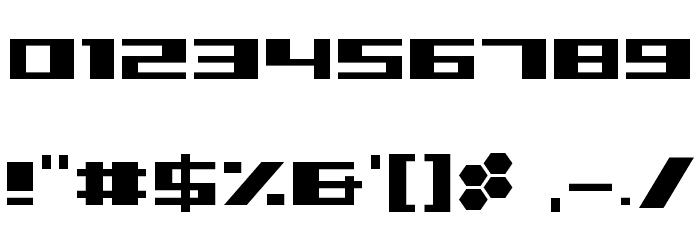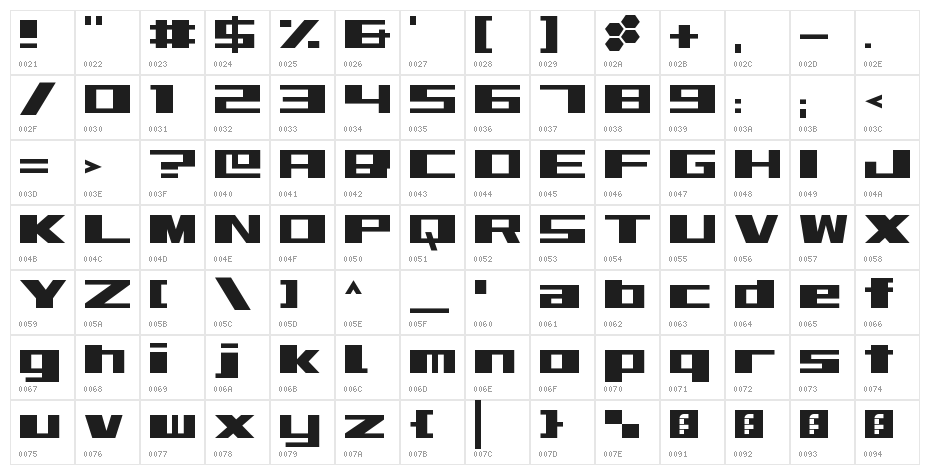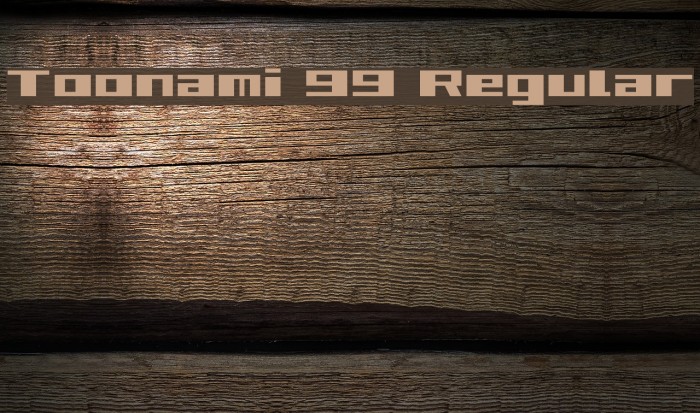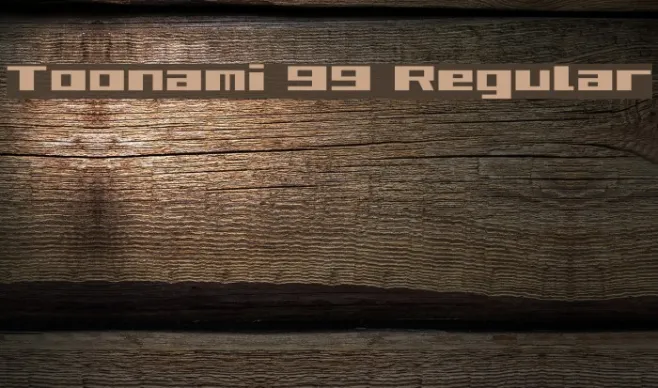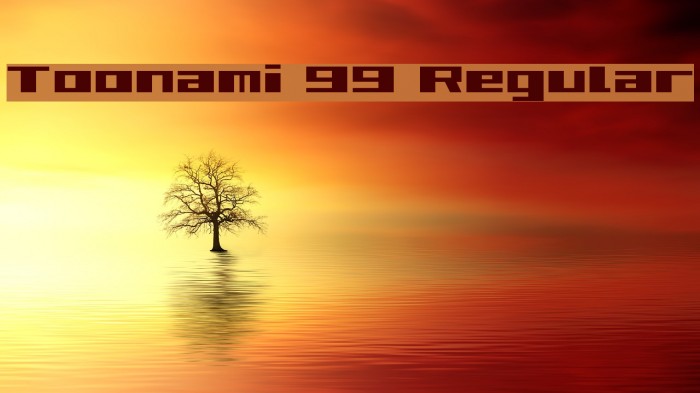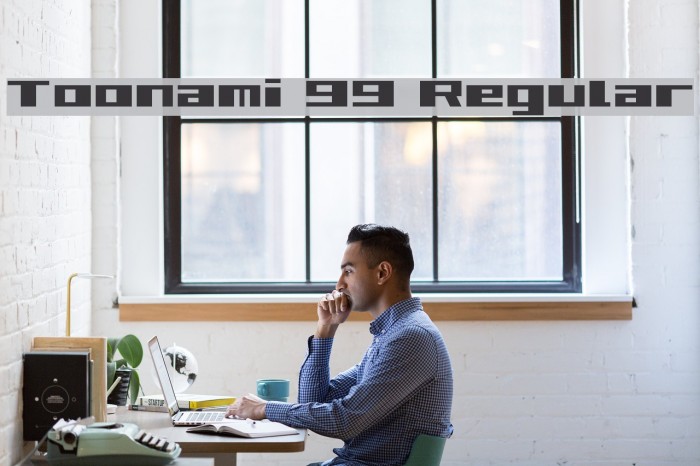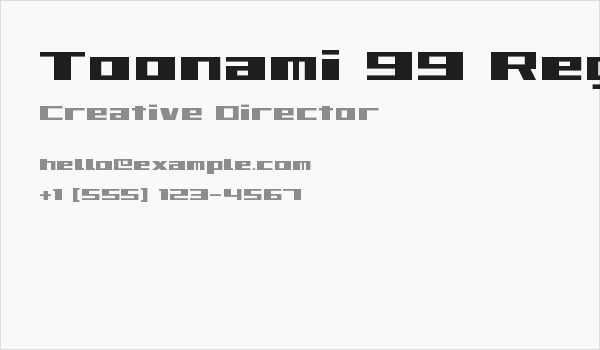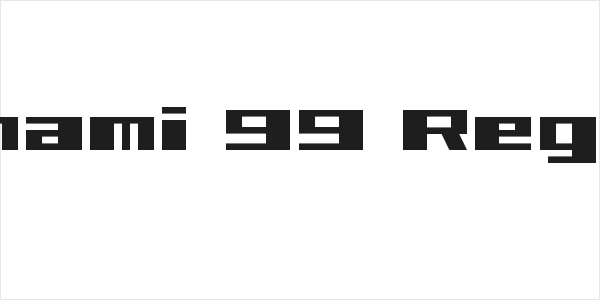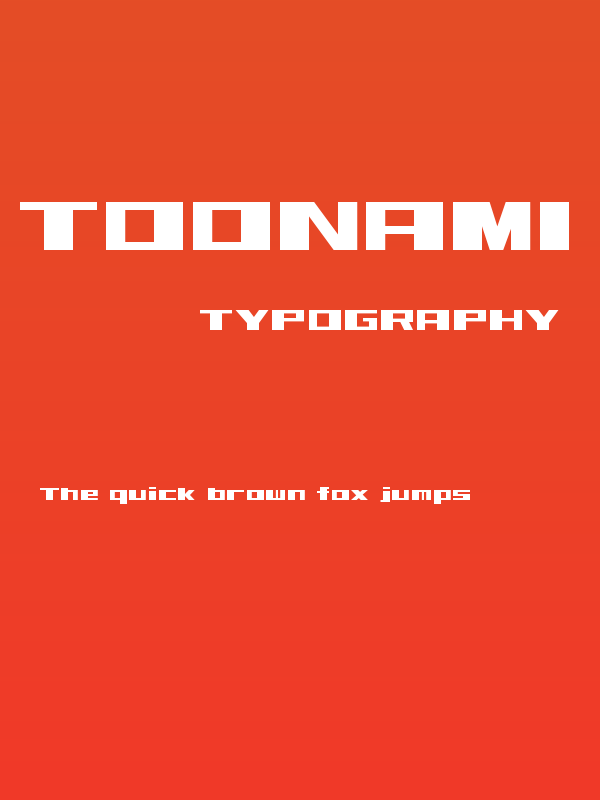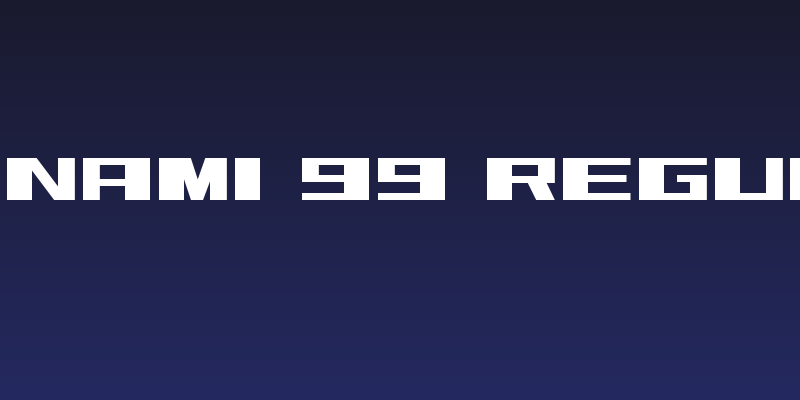
Toonami 99 Regular Font
Toonami 99 Regular Description
This font features a bold, geometric design with a futuristic and angular aesthetic. The characters are constructed with sharp edges and a blocky structure, giving it a strong and impactful presence. The uppercase and lowercase letters maintain a consistent style, with the lowercase being slightly more condensed. Numbers and special characters follow the same design principles, ensuring uniformity across all glyphs. The font's distinct style makes it ideal for projects that require a modern and tech-inspired look.
| Proposed Projects | Ideal for sci-fi themed projects, video game titles, tech branding, and futuristic posters. |